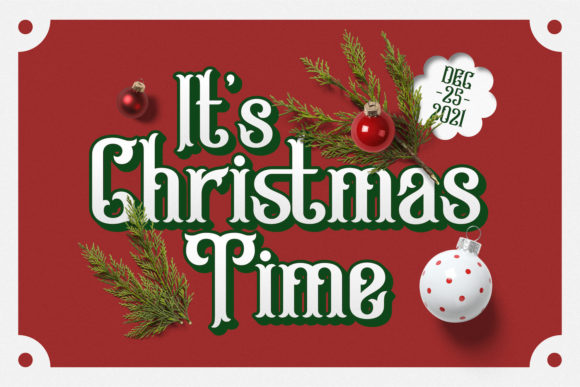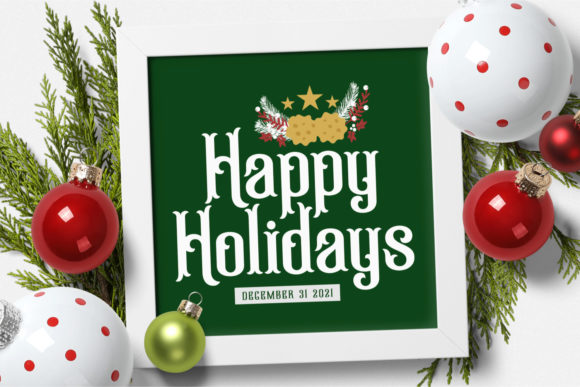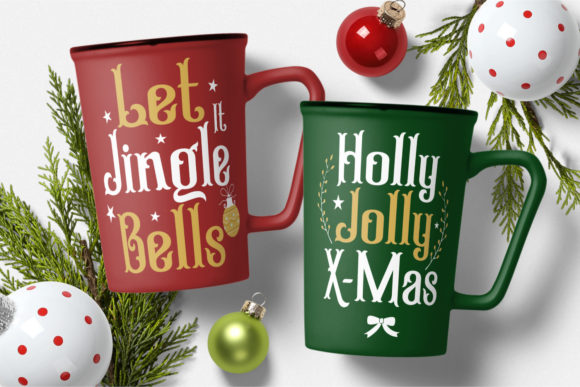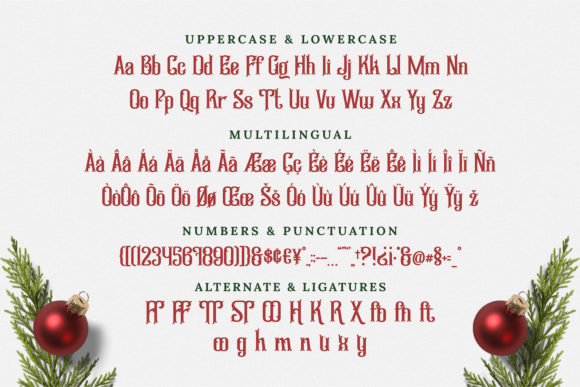
Introducing Blueming Font: A Vintage Styled Blackletter Masterpiece
Are you a designer or crafter looking for a unique and versatile font to elevate your creative projects? Look no further than Blueming Font, a vintage styled and uniquely designed blackletter font that is sure to become an incredible asset to your font library.
The Charm of Blackletter Fonts
Blackletter fonts have been a staple of typography for centuries, evoking a sense of elegance, sophistication, and nostalgia. These fonts are characterized by their dramatic flourishes, intricate details, and bold, expressive lines. Blueming Font takes the classic blackletter style and turns it on its head, infusing it with a modern twist that is both fresh and exciting.
What Makes Blueming Font Special?
So, what sets Blueming Font apart from other blackletter fonts on the market? Here are just a few of its standout features:
- Unique Design: Blueming Font boasts a distinctive, hand-crafted design that is both vintage-inspired and refreshingly modern.
- Versatility: Whether you’re working on a logo, a poster, a website, or a craft project, Blueming Font is the perfect choice. Its versatility ensures that it will complement any design style or theme.
- Elegance: With its flowing lines, intricate details, and classic blackletter style, Blueming Font exudes elegance and sophistication.
- Readability: Despite its ornate design, Blueming Font remains highly readable, making it perfect for both headings and body text.
How to Use Blueming Font in Your Designs
Blueming Font is an incredibly versatile font that can be used in a wide range of design applications. Here are just a few ideas to get you started:
- Logos and Branding: Use Blueming Font to create a unique and memorable logo that will set your brand apart from the competition.
- Posters and Flyers: Add a touch of elegance and sophistication to your posters and flyers with Blueming Font.
- Web Design: Use Blueming Font to create stunning website headers, titles, and other design elements that will elevate your website to the next level.
- Crafting and Scrapbooking: Add a personal touch to your craft projects and scrapbook pages with Blueming Font.
Tips for Pairing Blueming Font with Other Fonts
When pairing Blueming Font with other fonts, there are a few things to keep in mind:
- Contrast: Pair Blueming Font with a clean, sans-serif font to create a striking contrast that will make your design stand out.
- Harmony: Choose a font that complements the style and feel of Blueming Font, such as a vintage-inspired serif font.
- Hierarchy: Use Blueming Font as a headline font and pair it with a simpler font for body text to create a clear visual hierarchy.
In conclusion, Blueming Font is a vintage styled and uniquely designed blackletter font that is sure to become a valuable addition to your font library. With its elegant design, versatility, and readability, Blueming Font is the perfect choice for designers and crafters looking to elevate their creative projects. Whether you’re working on a logo, poster, website, or craft project, Blueming Font is the perfect choice. So why wait? Download Blueming Font today and start creating stunning designs that will leave a lasting impression!